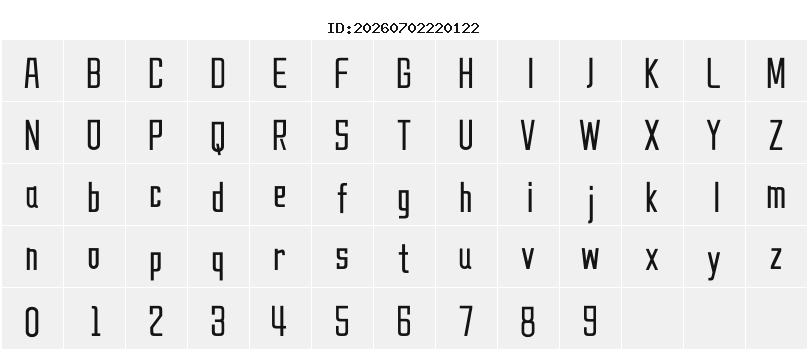
• Font Name: 143-上首圆木体
• Font ID: 143-SSYuanMu Ti:Version 4.00
• Full Font Name: 143-上首圆木体
• Version: Version 4.00 May 27, 2022
• PostScript Name: 143-SSYuanMuTi
• Character Count: 7567
• Manufacturer: 上首造字
About 143-上首圆木体.ttf
143-上首圆木体.ttf is a modern, elegant sans-serif font designed for ultimate readability and visual harmony. Perfect for branding, headlines, web design, and print materials.